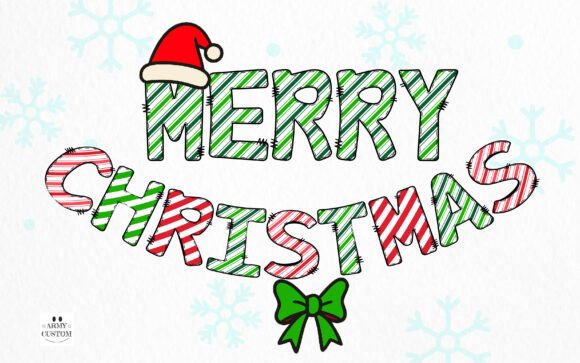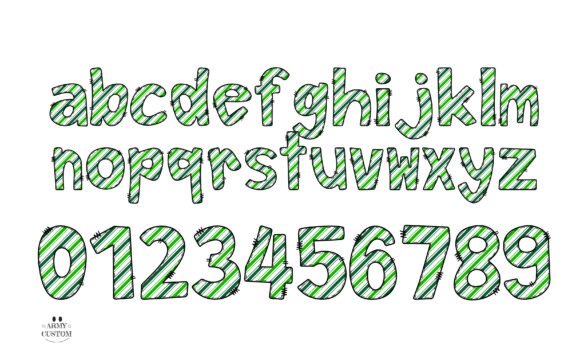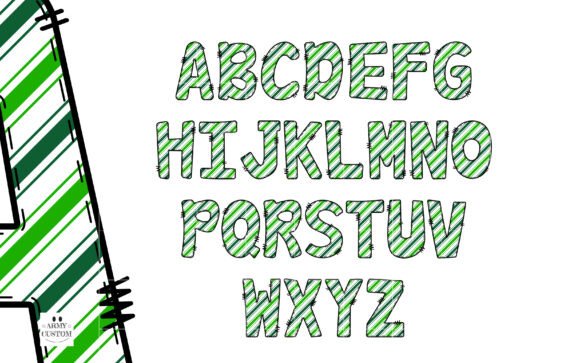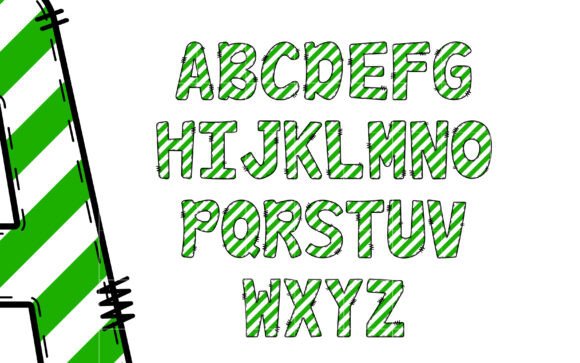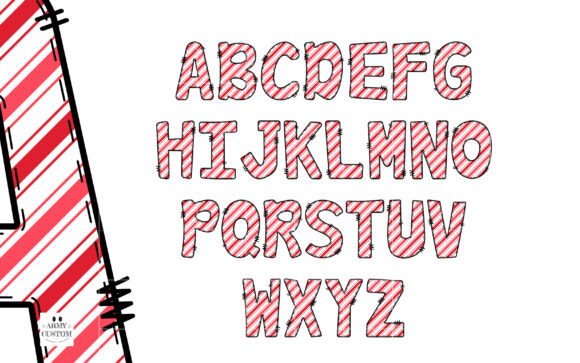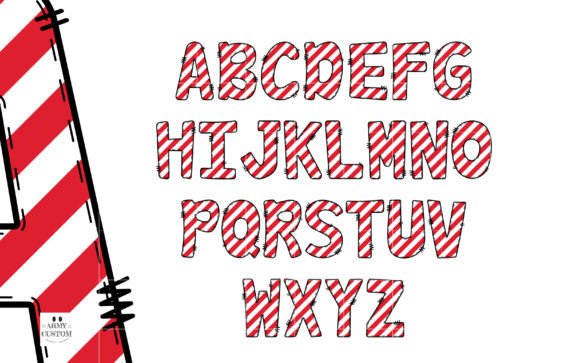
Deck the Halls with the Perfect Holiday Font
As you sit down to create this year’s Christmas cards, you’re faced with the daunting task of finding the perfect font to capture the magic of the season. You scroll through your font library, but nothing seems quite right. That’s when you stumble upon the Christmas Candy Bundle Font, and your creative wheels start turning.
This vibrant, festive font is the ultimate go-to for designers looking to add a dash of holiday cheer to their designs. With its playful red and green stripes, stitched edges, and hand-drawn charm, the Christmas Candy Bundle Font is the perfect way to evoke that irreplaceable warmth and merriment of the season. Whether you’re creating tags for gifts, DIY decorations, or digital content, this font adds that merry magic instantly.
Key Features of Christmas Candy Bundle Font
- Font Family: Christmas Candy Bundle, a unique and festive font family with 6 different styles (Regular, Italic, Bold, Bold Italic, Script, and Script Italic).
- Character Set: Includes a wide range of characters, including uppercase and lowercase letters, numbers, punctuation, and special characters, making it suitable for various applications.
- Size and Resolution: Designed to be scalable, with a resolution of 300 DPI, allowing for crisp and clear rendering on various devices and mediums.
- Unique Characteristics: Features a playful and whimsical design, with intricate details and ornaments, making it perfect for creating festive and holiday-themed content.
Designer Review: Christmas Candy Bundle Font
Overall, I’m impressed with the Christmas Candy Bundle Font, but it’s not without its flaws.
- ✨ The font is incredibly festive and perfect for holiday-themed designs. It’s a great choice for Christmas cards, gift tags, and other winter-themed projects.
- ✨ The bundle includes a range of weights, from light to bold, which makes it easy to customize and create a cohesive look.
- ✨ The font is well-behaved, with no major issues with spacing or alignment.
- ⚠️ The font is a bit over-the-top, even for a holiday design. Some of the characters and symbols feel a bit too playful or cartoonish.
- ⚠️ The font lacks a clear, sans-serif option, which might limit its use in more formal designs.
- ⚠️ Some of the weights feel a bit inconsistent, with varying levels of boldness and lightness.
Overall, I’d recommend the Christmas Candy Bundle Font for holiday-themed designs where you want to add a playful, festive touch. Just be aware of its limitations and use it in moderation.
Getting the Most Out of the Font
To get the most out of the Christmas Candy Bundle Font, consider the following tips:
- Use the font in combination with festive graphics and colors.
- Use the font to create a consistent brand identity.
The Christmas Candy Bundle Font is ideal for:
- Holiday marketing materials.
- Christmas party invitations.
- Seasonal social media graphics.
Alternatives to Christmas Candy Bundle Font
Great Vibes is a modern script font that’s perfect for creating a festive and playful atmosphere. It’s ideal for use in social media graphics, advertisements, and packaging design. Unlike Christmas Candy Bundle Font, Great Vibes has a more relaxed and casual feel, making it suitable for a wider range of designs.
Carolyna Pro is a elegant and sophisticated font that’s perfect for creating a luxurious and festive atmosphere. It’s ideal for use in high-end branding, invitations, and packaging design. Compared to Christmas Candy Bundle Font, Carolyna Pro has a more refined and polished feel, making it suitable for more formal designs.
Pacifico is a beautiful and elegant font that’s perfect for creating a warm and inviting atmosphere. It’s ideal for use in branding, invitations, and packaging design. Unlike Christmas Candy Bundle Font, Pacifico has a more relaxed and natural feel, making it suitable for a wider range of designs, including those that don’t necessarily involve Christmas or holiday themes.
Q: Can I customize the Christmas Candy Bundle Font to create a new font style?